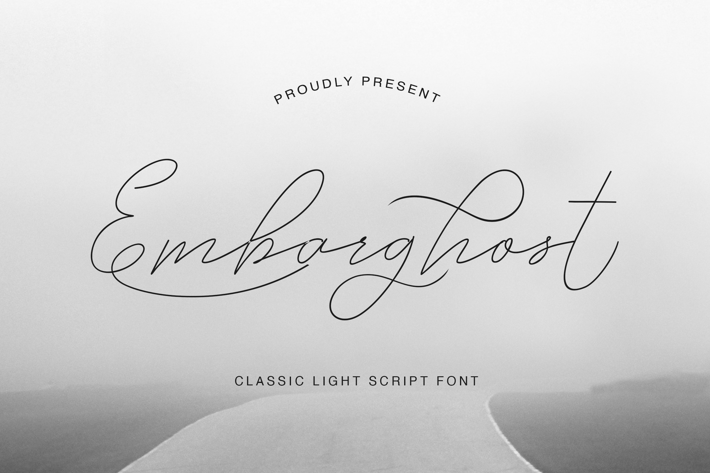
Embarghost - Classic Light Script Font
Embarghost Modern Calligraphy Font. This font is designed with handwriting, has a modern and unique calligraphic form, the writing style is very natural. The Embarghost font has a very unique calligraphic style, very suitable for use in modern design works.
The characteristics of this font are:
Standard ligatures
Alternative Style
Can be used for various purposes such as titles, logos, wedding invitations, letterheads, labels, news, posters, badges, etc.